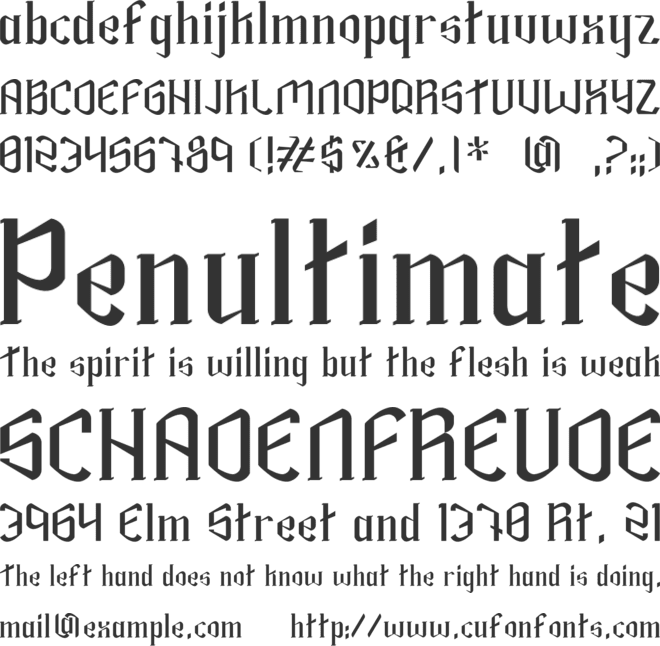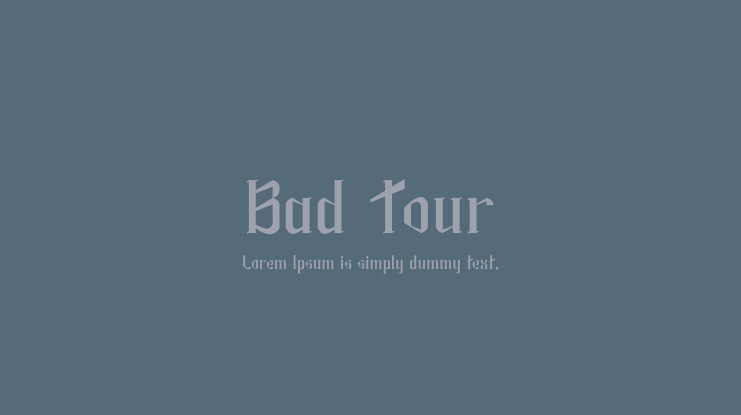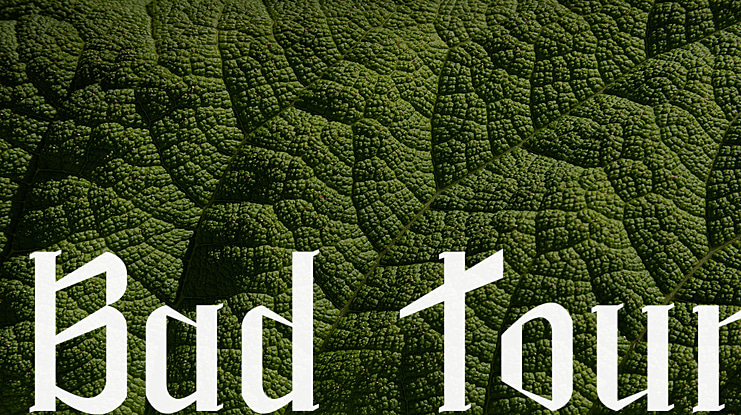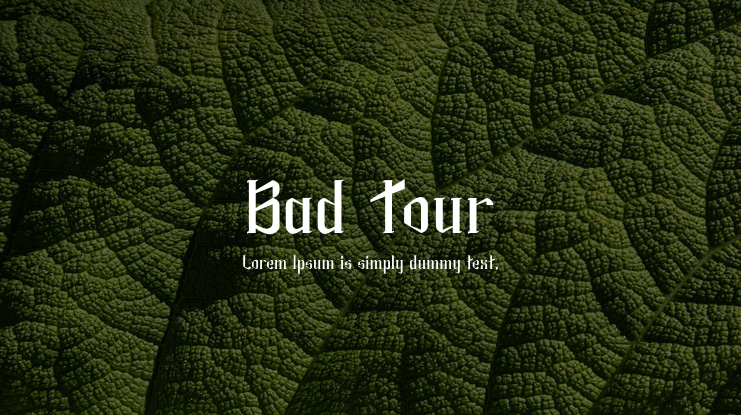
Bad Tour Font
Bad Tour was created in 2019 by Los Angeles designer, Armel Patanian. It intends to employ serifs such that they do not aid in reading. Rather, they work with counters and tapering strokes to subtly imply staggered 3D arrangements of 2D planes, making readers feel as if they might be seeing imagery in perspective when looking through the characters.